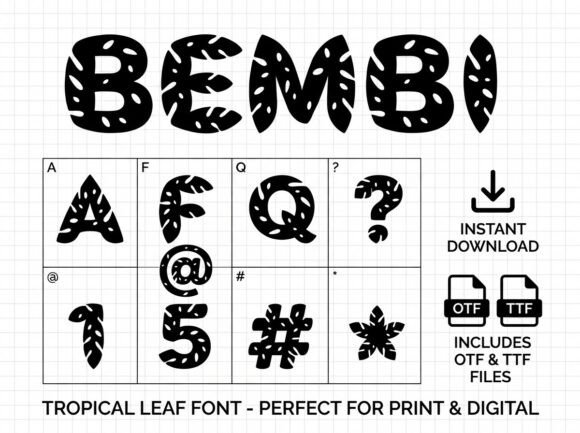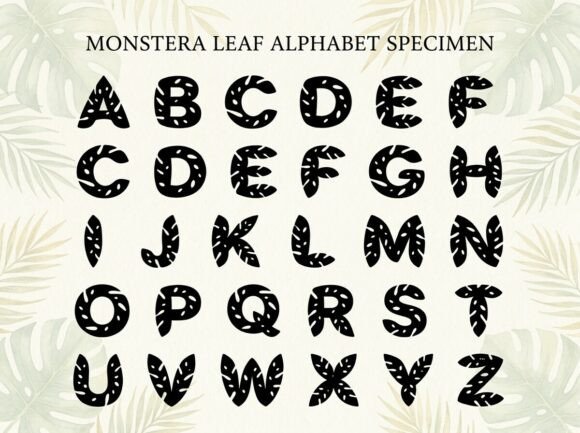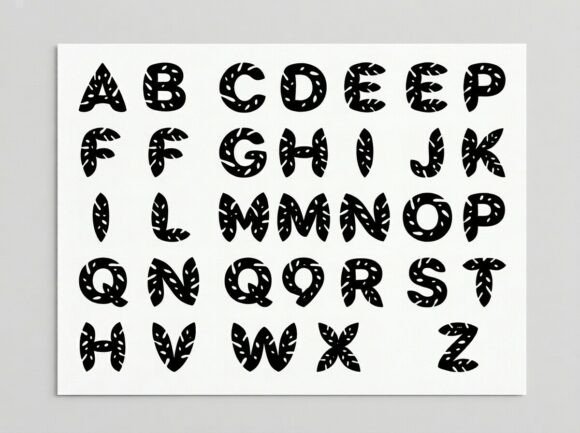
Unleash Your Creativity with the Perfect Display Font
You’ve spent hours pouring your heart into a design project, and it’s finally time to add that extra oomph. You know, that moment when you need to make a statement and really grab the viewer’s attention. For designers like you, the right font can be the difference between a good design and a great one. That’s where the Bembi Font comes in – a stunning display font designed to take center stage in any layout.
With its unique blend of artistic elements and strong character, the Bembi Font is perfect for creators who want to break away from the ordinary. Whether you’re working on a bold headline, creative branding, or packaging, this font delivers a high-end, professional aesthetic without sacrificing personality. And the best part? It’s incredibly versatile, making it a valuable addition to any designer’s toolkit.
Bembi Font Key Features
- Font Family: Bembi Font comes in a range of font styles including Bembi Regular, Bembi Italic, Bembi Bold, and Bembi Bold Italic.
- Unique Characteristics: Bembi Font features a unique blend of traditional and modern design elements, with intricate details and subtle flourishes.
Bembi Font Review
As a designer, I was excited to dive into the Bembi Font, and overall, I think it’s a solid choice for certain projects. Here are some of the things that work well: ✨
- Unique, playful feel: Bembi Font has a distinctive character that sets it apart from more common fonts.
- Good for titles and headings: Its bold, eye-catching style makes it perfect for grabbing attention in titles, headings, and other display text.
- Supports multiple languages: Bembi Font includes a wide range of languages, making it a versatile option for multilingual projects.
- Not ideal for body text: While Bembi Font is great for titles and headings, it can be difficult to read in large blocks of body text due to its playful, irregular shape.
- May not be suitable for formal projects: The font’s quirky feel may not be suitable for formal, professional projects or situations where a more traditional font is required.
Overall, I think Bembi Font is a great choice for projects that need a bit of personality and flair. While it may not be the best fit for every project, it’s definitely worth considering for titles, headings, and other display text where you want to make a statement.
Tips for Getting the Most Out of Bembi Font
To get the most out of Bembi Font, try the following:
- Experiment with different font sizes and styles to create visual interest
- Combine Bembi Font with other fonts to create a unique and interesting typography
- Use Bembi Font for headings and titles to create a clear hierarchy of information
Bembi Font is ideal for: